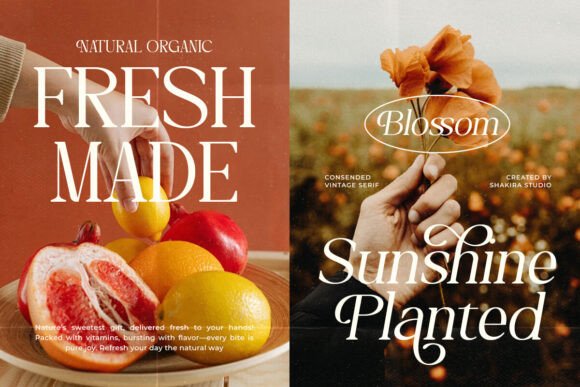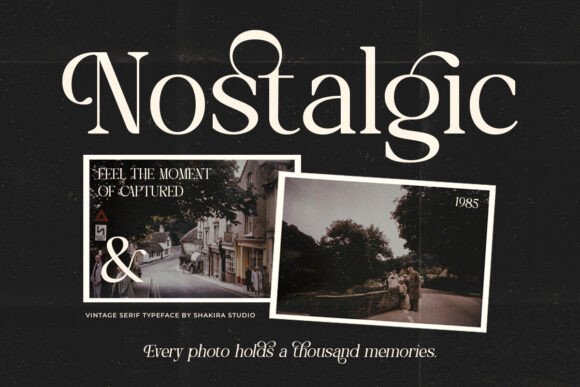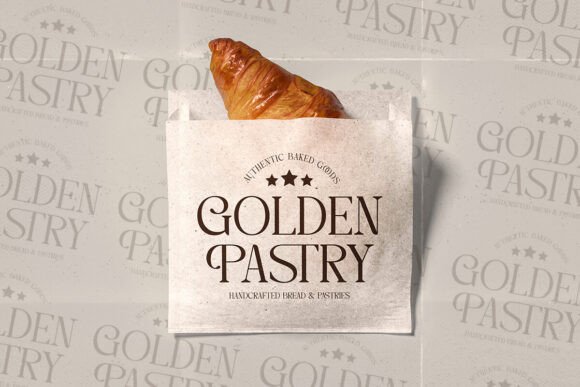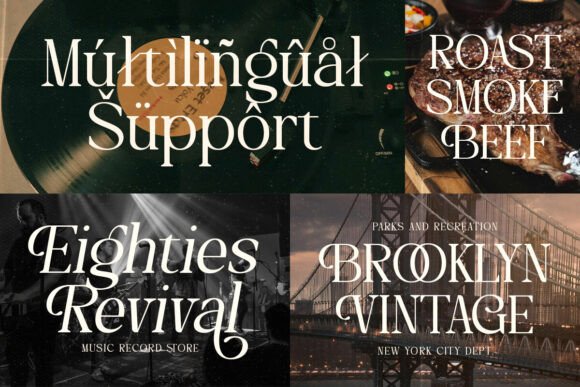
Rachels Bendaty Font
Rachels Bendaty is a retro display serif font available in regular and italic styles. It features a stylish and trendy design with elegant alternates and ligatures, perfect for branding, editorial projects, social media, invitations, and more. Elevate your designs with its timeless charm and modern sophistication.